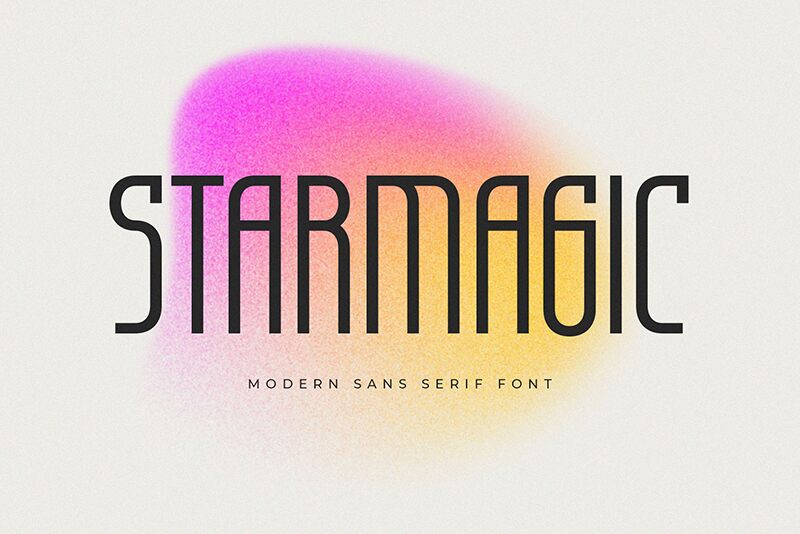
Starmagic
Starmagic, designed by BrandSemut, is a sans serif typeface that encapsulates the essence of a futuristic vision. Its semi-light weight gives it an airy yet substantial presence, while the extra-condensed width provides a sleek and efficient use of space. The clean lines and unadorned simplicity lend Starmagic an aesthetic that is both modern and timeless. This font's uncluttered form makes it highly legible at various sizes, ideal for digital interfaces or printed materials where clarity is paramount.
With its contemporary look, Starmagic is perfectly suited for creative projects that require a touch of sophistication without sacrificing readability. Whether used in tech startups' branding, sci-fi film titles, or innovative advertising campaigns, Starmagic offers designers a versatile tool to convey forward-thinking ideas with style.